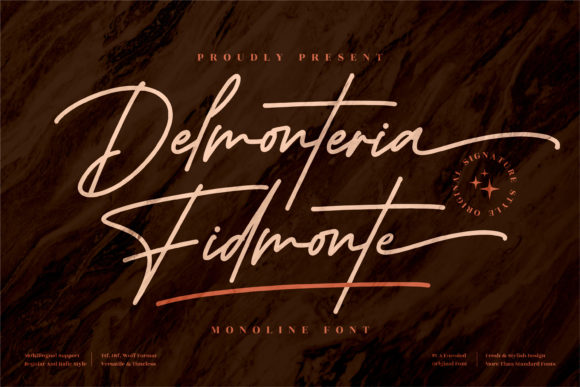
About Delmonteria Fidmonte Font
Delmonteria Fidmonte is a chic, refined script font that emanates sophistication and elegance. Its stylish alternates and ligatures make this font the perfect match for any project. Delmonteria Fidmonte is PUA encoded which means you can access all of the amazing glyphs and ligatures with ease!